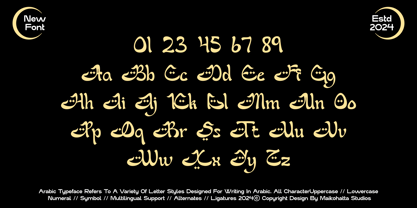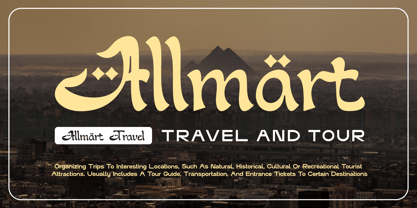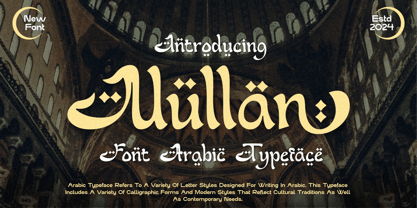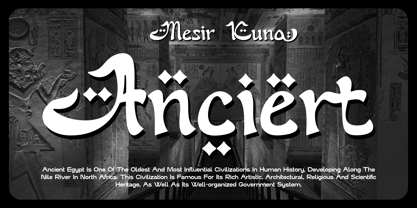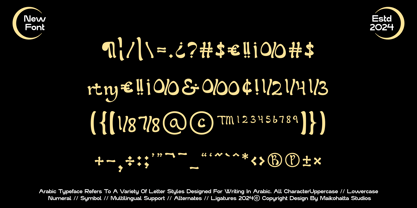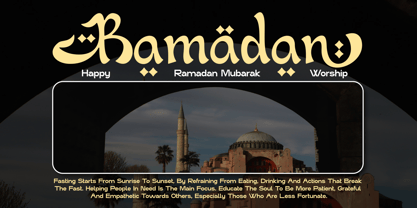
Nullan
The Nullan Font Family was designed by Gilang Ternadho and published by Maikohatta. Nullan contains 1 styles.
Introducing our new product Nullan - Font Arabic Typeface
Nullan - Font Arabic Typeface is a bold and authentic display font. The font is suitable for any branding project like logo, Template Design, esport, and many more. outstanding in a wide range of contexts.